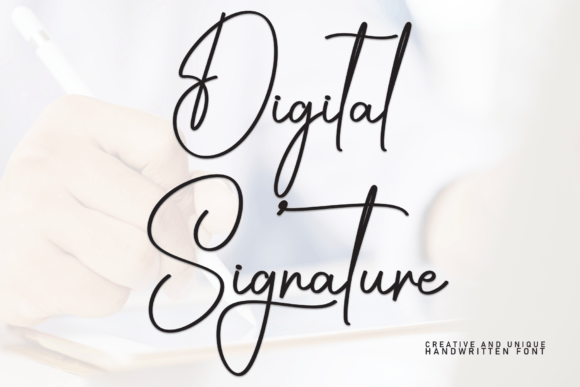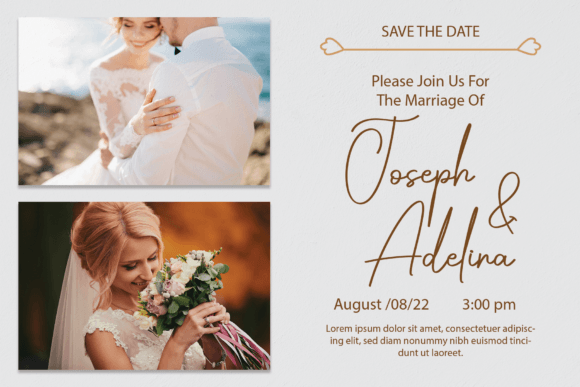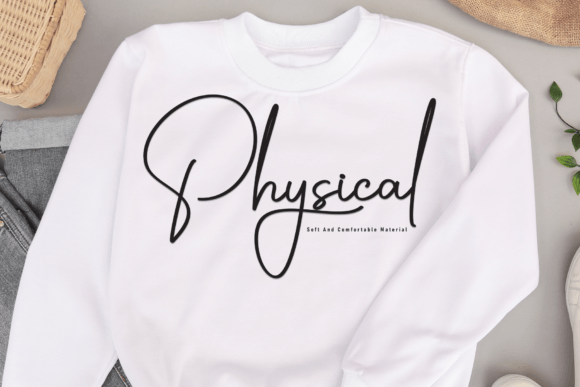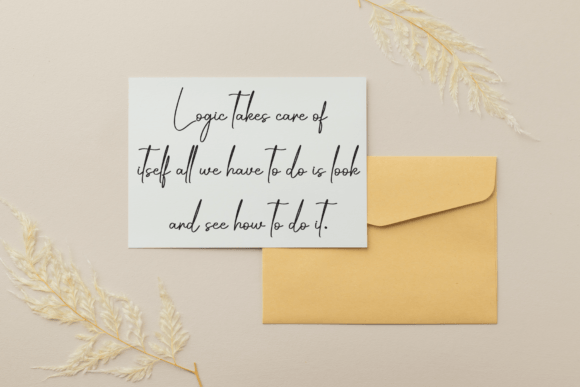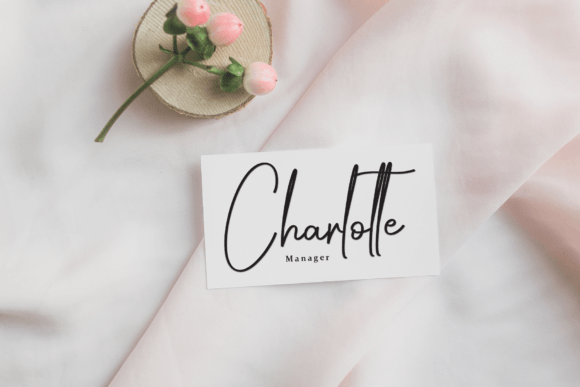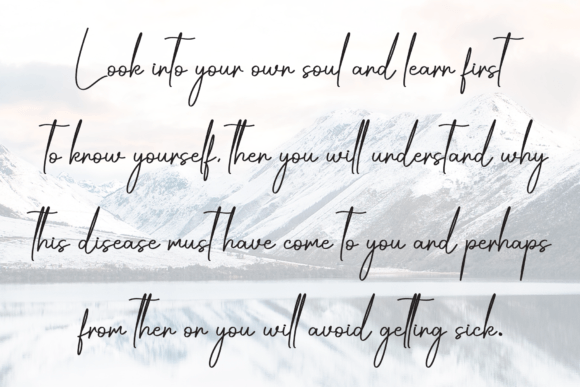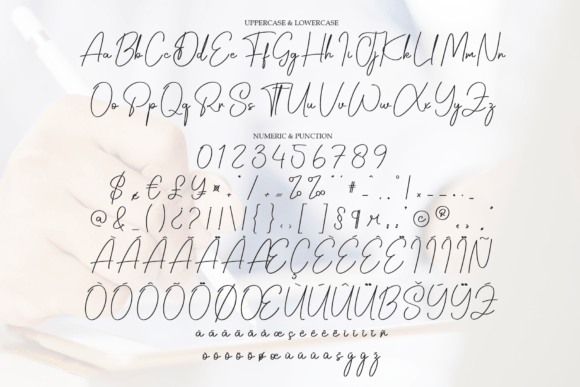
The Power of a Perfect Signature
You’re sitting at your desk, surrounded by scraps of paper, empty coffee cups, and a computer screen filled with design possibilities. Your client has just given you a tight deadline for a new magazine spread, and you need to create a header that screams attention. You’ve tried a dozen fonts, but nothing seems quite right. That’s when you stumble upon the perfect solution – a font that’s both elegant and effortless, yet still packs a personal touch.
Meet the Digital Signature Font, a game-changing tool for designers like you. This easy-to-read, simple yet handwritten font is perfect for a variety of applications, from greeting cards to social media headers. With its versatility and timeless charm, the Digital Signature Font is an invaluable asset for any designer looking to elevate their work.
Digital Signature Font Key Features
- Size: The font size is scalable, allowing for customization to fit various digital signature requirements.
- Resolution: Optimized for high-resolution displays, ensuring crisp and clear digital signatures, even at high zoom levels.
- Unique Characteristics: The font includes advanced security features, such as anti-counterfeiting measures and tamper-evident functionality, to prevent unauthorized use and alteration of digital signatures.
- Customization Options: The digital signature font allows for customization of color, size, and style to match individual or organizational branding.
- Compliance: Designed to meet or exceed industry standards for digital signatures, including eIDAS and ESIGN regulations.
Designer Review: Digital Signature Font
Overall, I think the Digital Signature Font has some great features that make it a solid choice for digital signatures. ✨ Here are some things that work well:
- High-quality, professional appearance: The font is clean, modern, and easy to read.
- Customizable: You can adjust the font size, color, and style to fit your brand’s identity.
- Scalability: The font looks great in both small and large sizes, making it perfect for digital signatures.
However, there are some limitations that I think are worth noting: ⚠️
- Limited compatibility: The font may not work well with older software or operating systems.
- Dependent on software: The font’s functionality relies on the software it’s integrated with, which can be a drawback.
Overall, I think the Digital Signature Font is a great option for businesses and individuals who want a professional and customizable digital signature solution. While it’s not perfect, it’s a solid choice that can help you make a great impression. With some tweaks and adjustments, I think this font has a lot of potential for growth and improvement.
To use a digital signature font in PowerPoint or Word, follow these steps:
1. Select the text tool and choose the digital signature font from the font library.
2. Type your signature and adjust the size, color, and style as needed.
3. Use the shape feature to add a transparent background or merge the signature with an image.
Tips for Getting the Most Out of Your Digital Signature Font
Use a high-quality digital signature font that is easily readable and scalable.
Experiment with different font styles and colors to create a unique signature.
Use a consistent signature across all platforms and documents to build brand recognition.
Digital signature fonts are commonly used for:
Signing documents and contracts
Creating business cards and marketing materials
Adding a personal touch to presentations and reports
Alternatives to Digital Signature Font for Designers
1. OpenSign
OpenSign is an open-source digital signature solution that offers customizable fonts and styles. It’s ideal for designers who need to create a unique visual identity for their clients. Compared to Digital Signature Font, OpenSign offers more flexibility and customization options, but may require more technical expertise to implement.
2. Signature Pad
Signature Pad is a JavaScript library that allows designers to create digital signature fields with a customizable appearance. It’s suitable for web applications and mobile apps. Compared to Digital Signature Font, Signature Pad provides more advanced features and a wider range of customization options, but may require more development effort.
How do I ensure that my Digital Signature Font is readable?
To ensure that your digital signature font is readable, it’s essential to choose a font that is clear and legible. Look for fonts that have a high level of detail and are designed to be easily recognizable. Additionally, make sure to use a font size that is large enough to be easily read, and consider using a font with a high level of contrast to make it stand out.